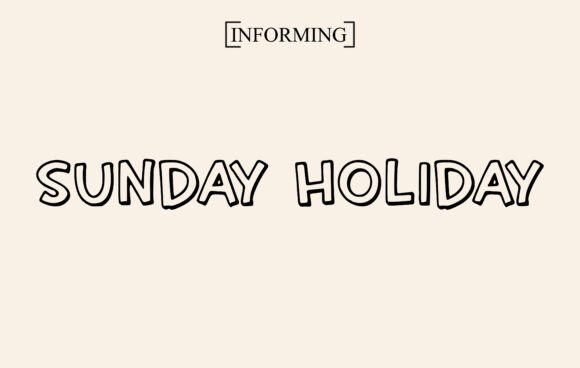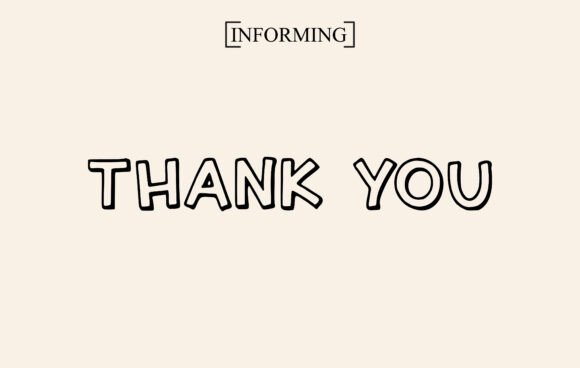
Introduction to Everblessed Font
Have you ever been working on a creative project, pouring your heart and soul into it, and then it all comes together with the perfect font? That’s exactly what happened to us when we discovered the Everblessed Font. With its unique blend of elegance and sophistication, this font has the potential to elevate your design game and make your ideas shine.
As designers, we know how valuable it is to have a reliable design resource that can make our work stand out. And that’s exactly what the Everblessed Font offers. Whether you’re working on a magazine headline, a t-shirt design, or a wedding invitation, this font is sure to impress. Its high quality and legibility make it perfect for both title and body text, and its versatility means it can be used on a transparent background or as a standalone element.
Key Features of Everblessed Font
- High-quality design resource with a transparent background, ideal for creative projects.
- Features a unique, elegant design that can be used for various applications, including logos, typography, and graphics.
- Designed to be highly legible, with clear lines and a clean aesthetic.
Honest Review: Everblessed Font
I recently came across the Everblessed Font, a free design resource that caught my attention. As a designer, I was excited to explore its capabilities and see if it would be a valuable addition to my creative project.
The Everblessed Font has a lot going for it. The font itself is ✨ high-quality and has a unique, elegant feel to it. One of the standout features is its ability to be used with a transparent background, which opens up a world of creative possibilities.
Here are some of the key features that I like about the Everblessed Font:
- High-quality design that’s perfect for a variety of creative projects
- Supports transparent backgrounds, giving you more flexibility in your design
- Only available in a single style, which may limit its use in certain projects
- May not be suitable for very large-scale designs due to its elegant, refined feel
Overall, I’m impressed with the Everblessed Font and would definitely consider using it in my future creative projects. While it may have some limitations, its high quality and unique design make it a valuable resource for designers looking to add a touch of elegance to their work.
The Everblessed Font is ideal for a wide range of creative projects, including:
- Typography projects
- Print materials (business cards, brochures, etc.)
- Digital designs (social media, website headers, etc.)